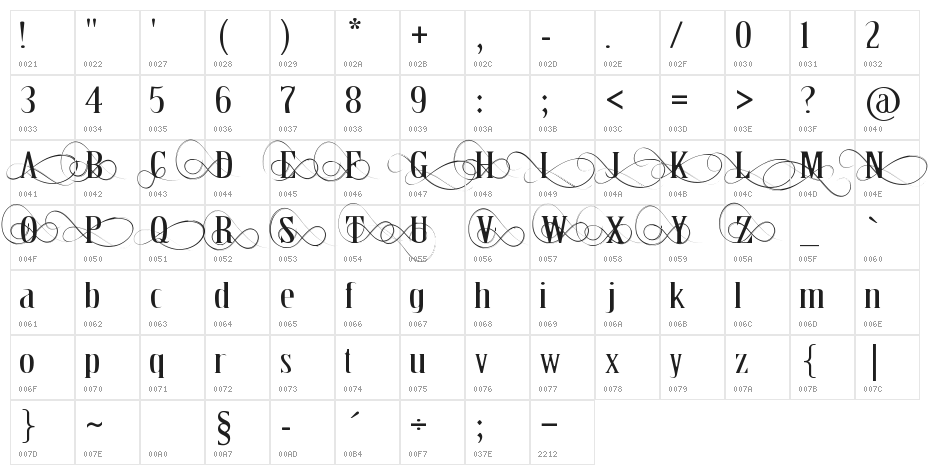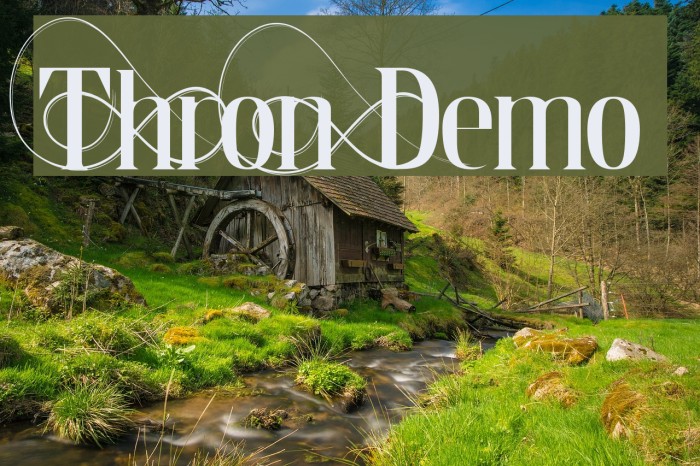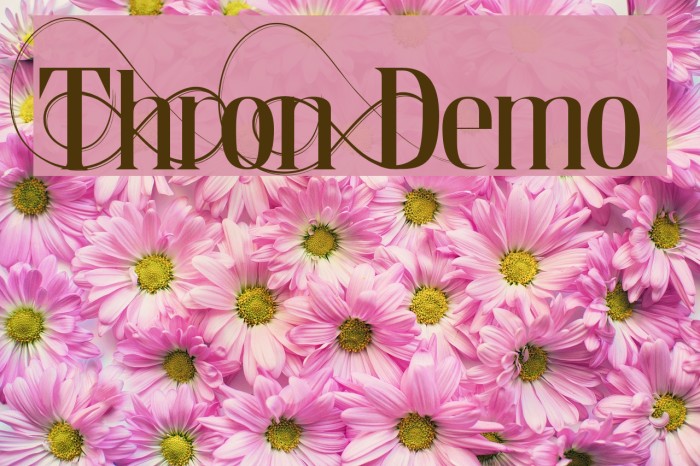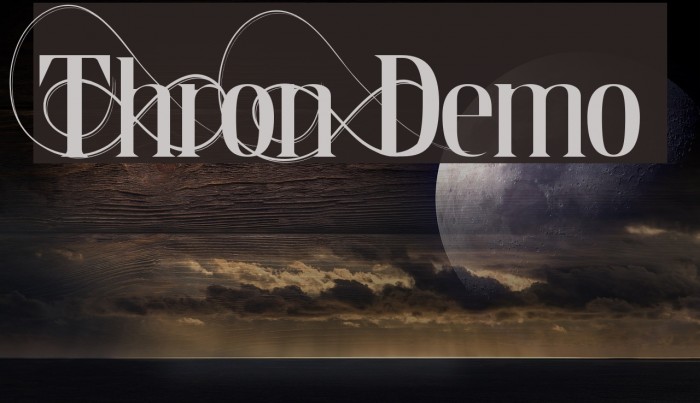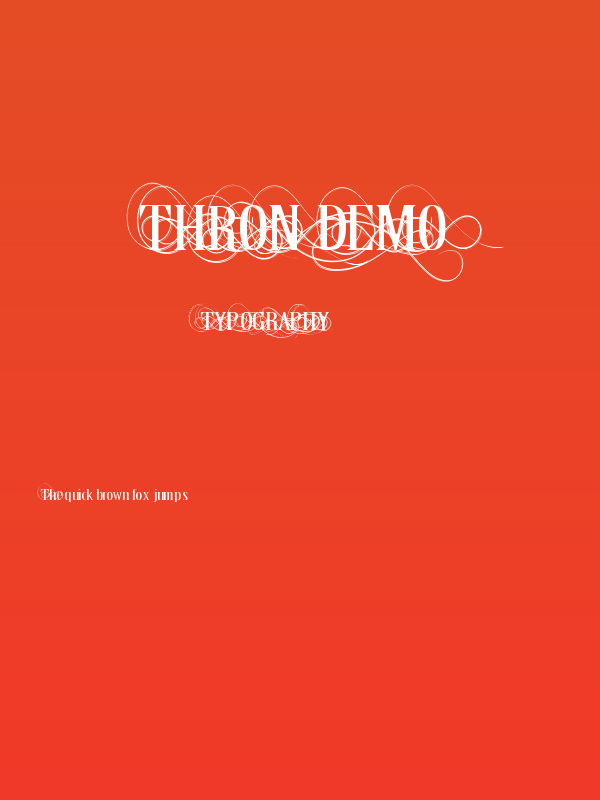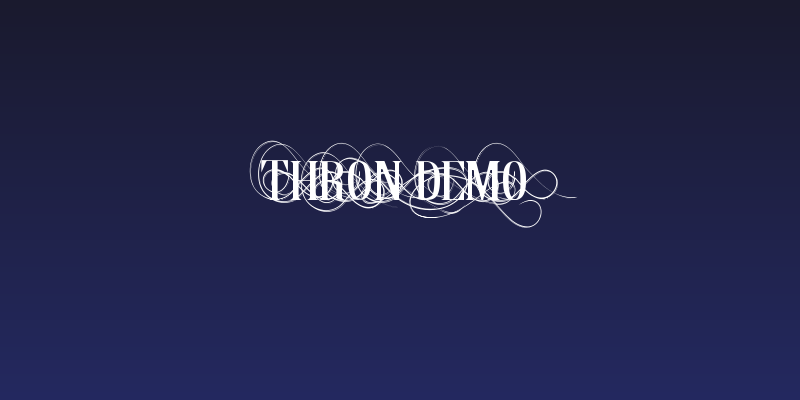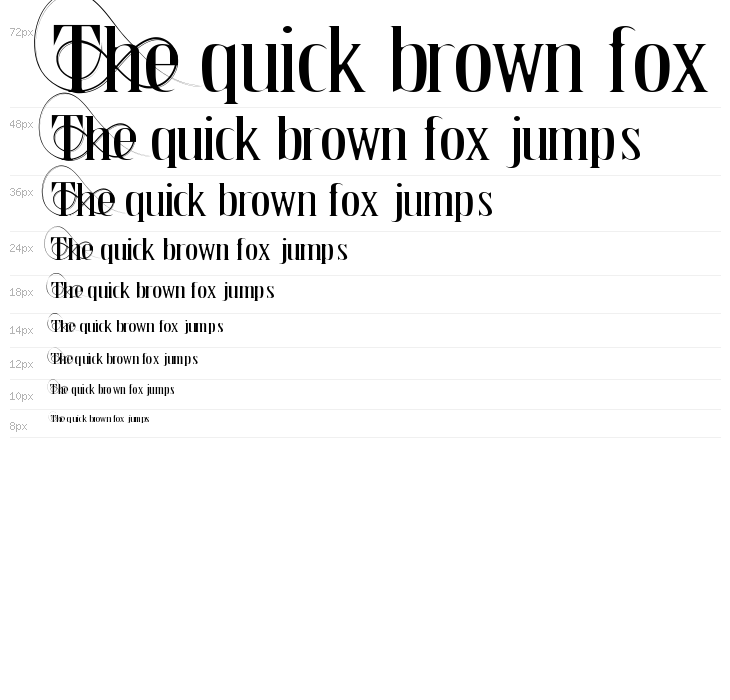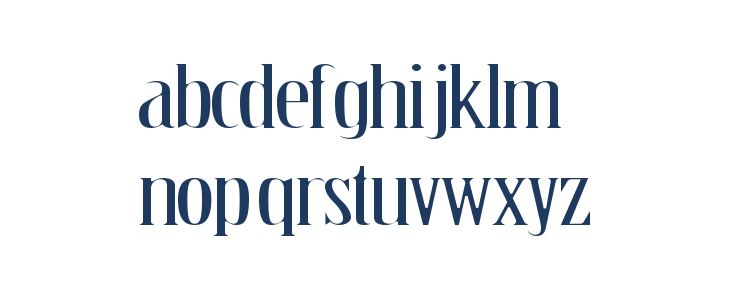
Thron Demo Font
Thron Demo Description
This font is a striking blend of elegance and boldness, featuring high contrast between thick and thin strokes. The uppercase letters are adorned with intricate swirls and flourishes, adding a decorative and sophisticated touch. The lowercase letters maintain a more traditional serif style, providing a balance between readability and style. The numerals are clean and consistent, matching the overall aesthetic. Special characters are included, with a focus on maintaining the decorative theme. This font is ideal for projects that require a touch of elegance and flair.
| Proposed Projects | Ideal for wedding invitations, luxury branding, and editorial design. |